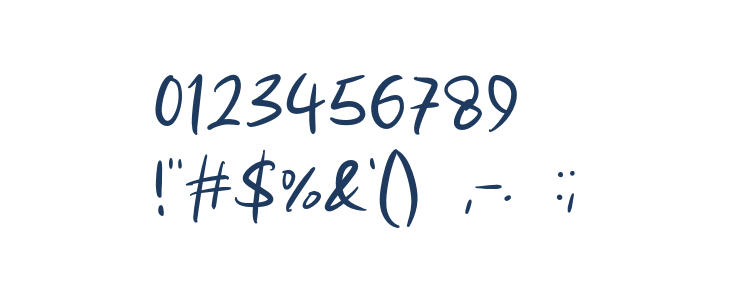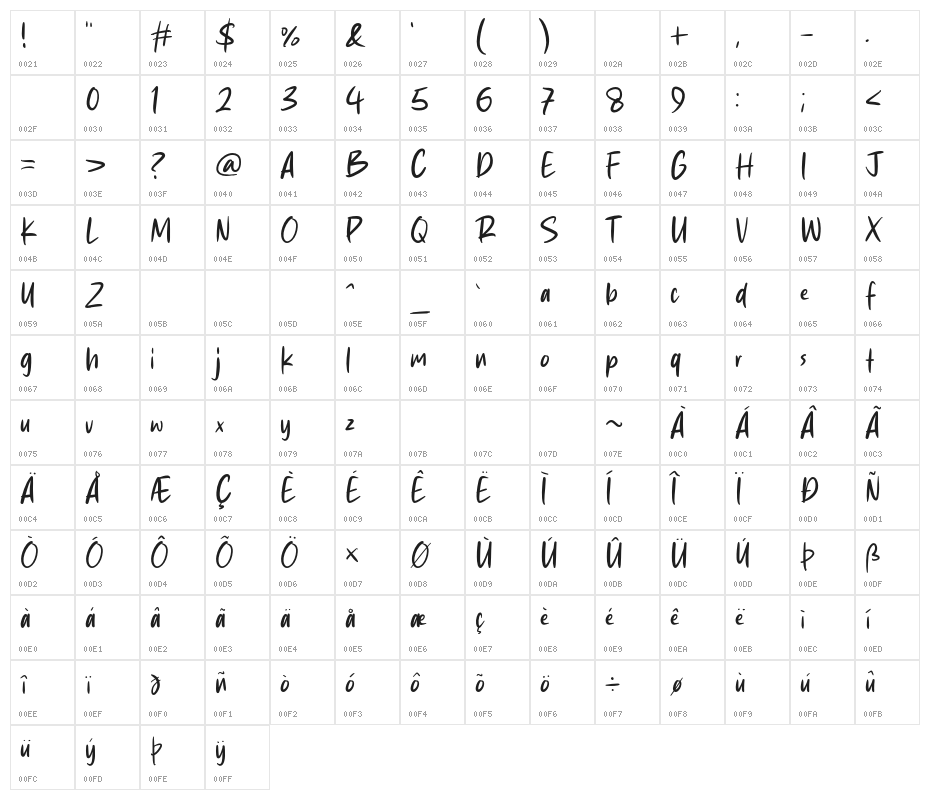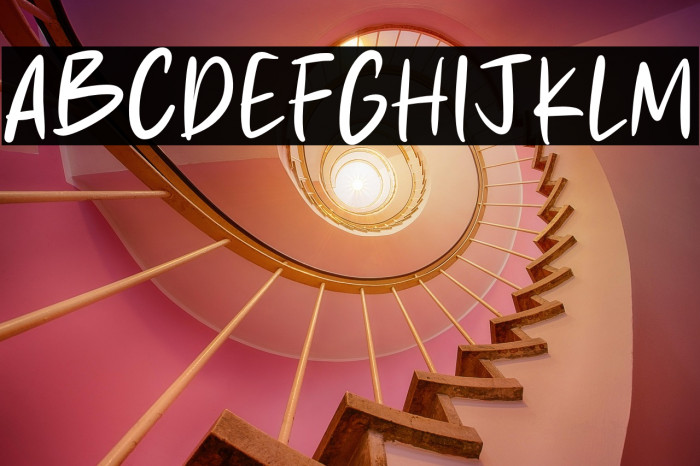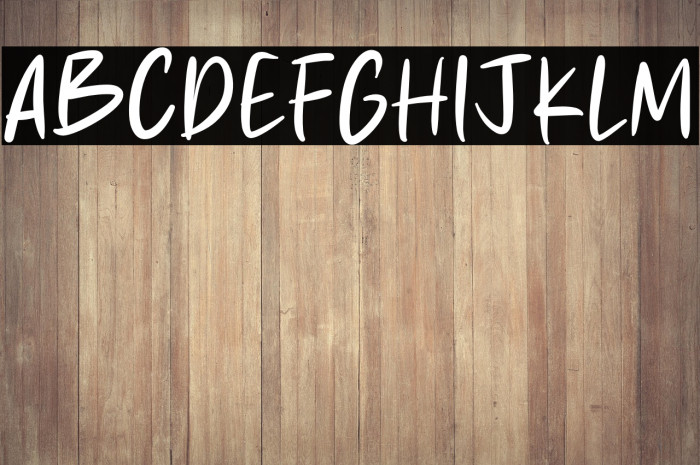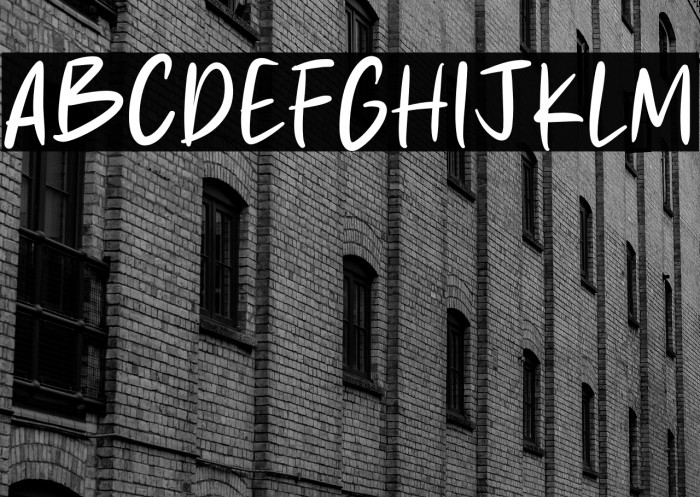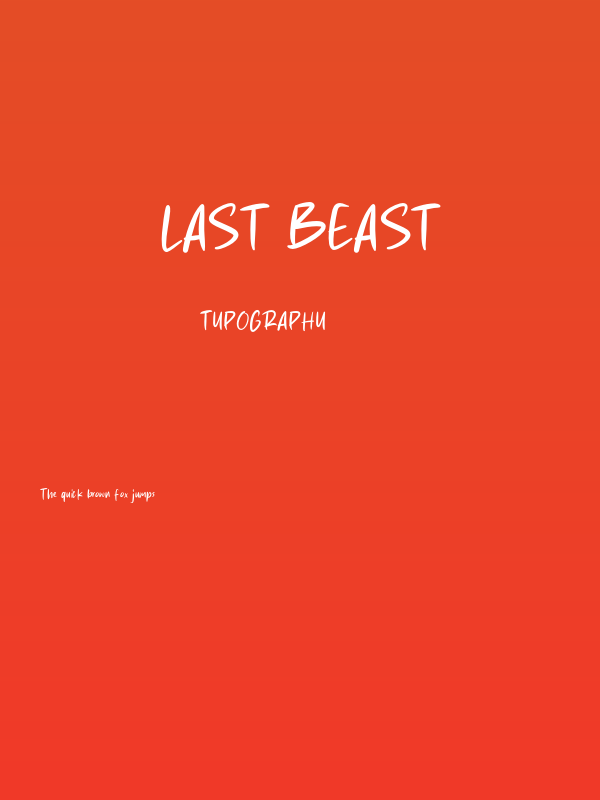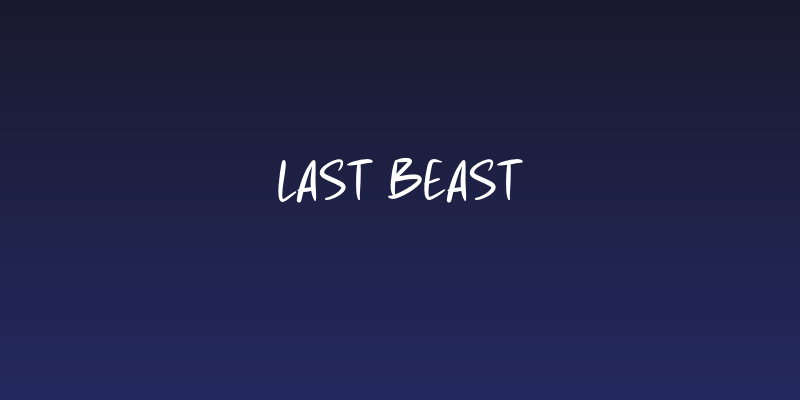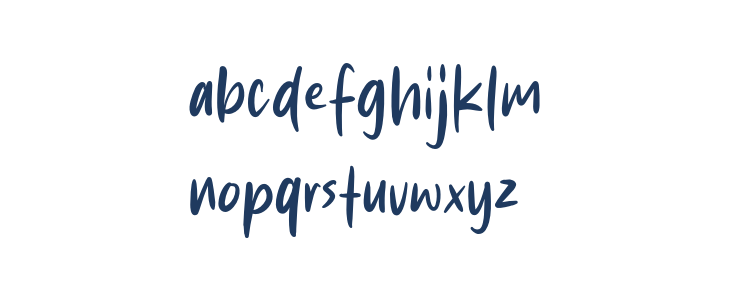
Last Beast Font
Last Beast Description
This font exhibits a lively and energetic handwritten style, characterized by its bold strokes and playful curves. The uppercase letters are slightly taller and more pronounced, while the lowercase letters maintain a consistent flow, adding a casual yet sophisticated touch. The numerals are clear and distinct, matching the overall playful aesthetic. Special characters are well-integrated, maintaining the font's cohesive look. The font's informal and friendly appearance makes it suitable for creative and expressive projects.
| Overall Style | Casual, Playful |
| Use Case | Headlines, Logos, Informal Text |
| Proposed Projects | Ideal for greeting cards, social media graphics, posters, and branding materials that require a personal and lively touch. |